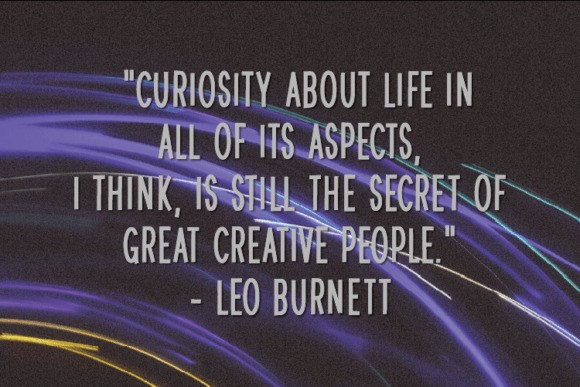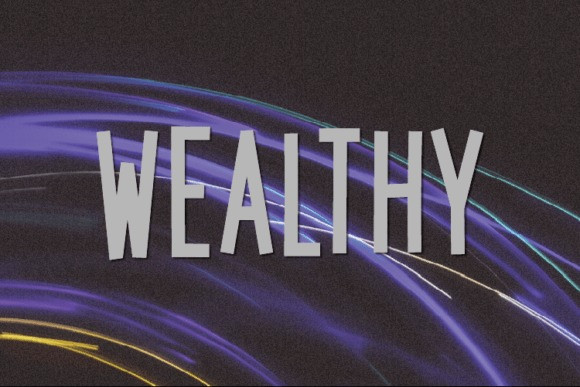
Wealthy Font
Wealthy Font is a natural sans serif font without changing a single node in each character’s indentation, this makes this font very interesting and unique. Perfect for quotes, notes, tees, and any product design.